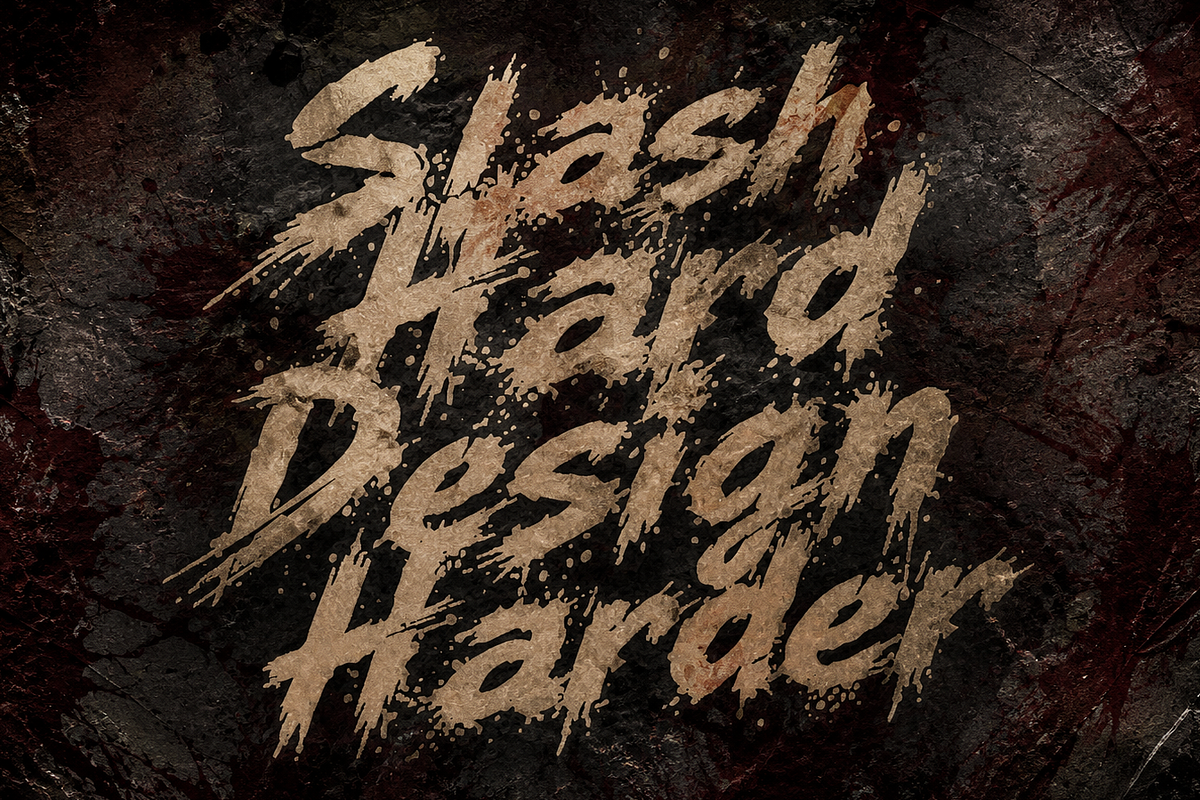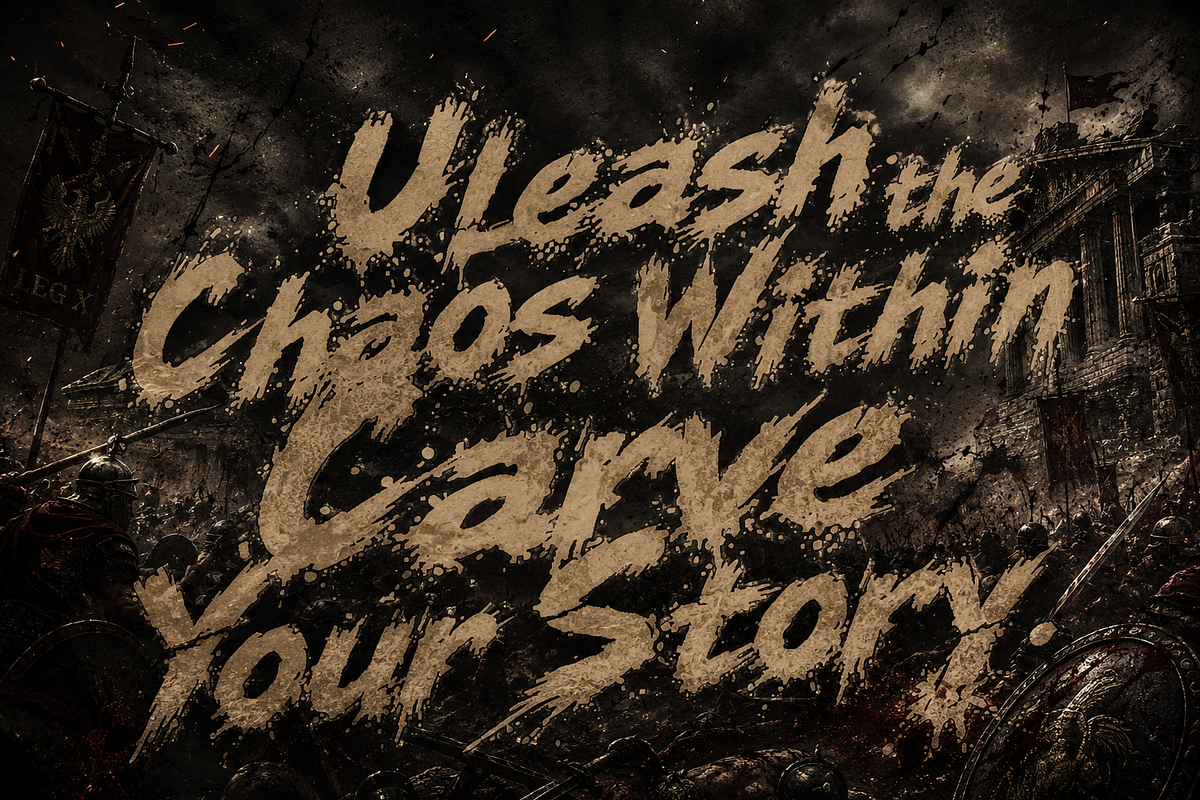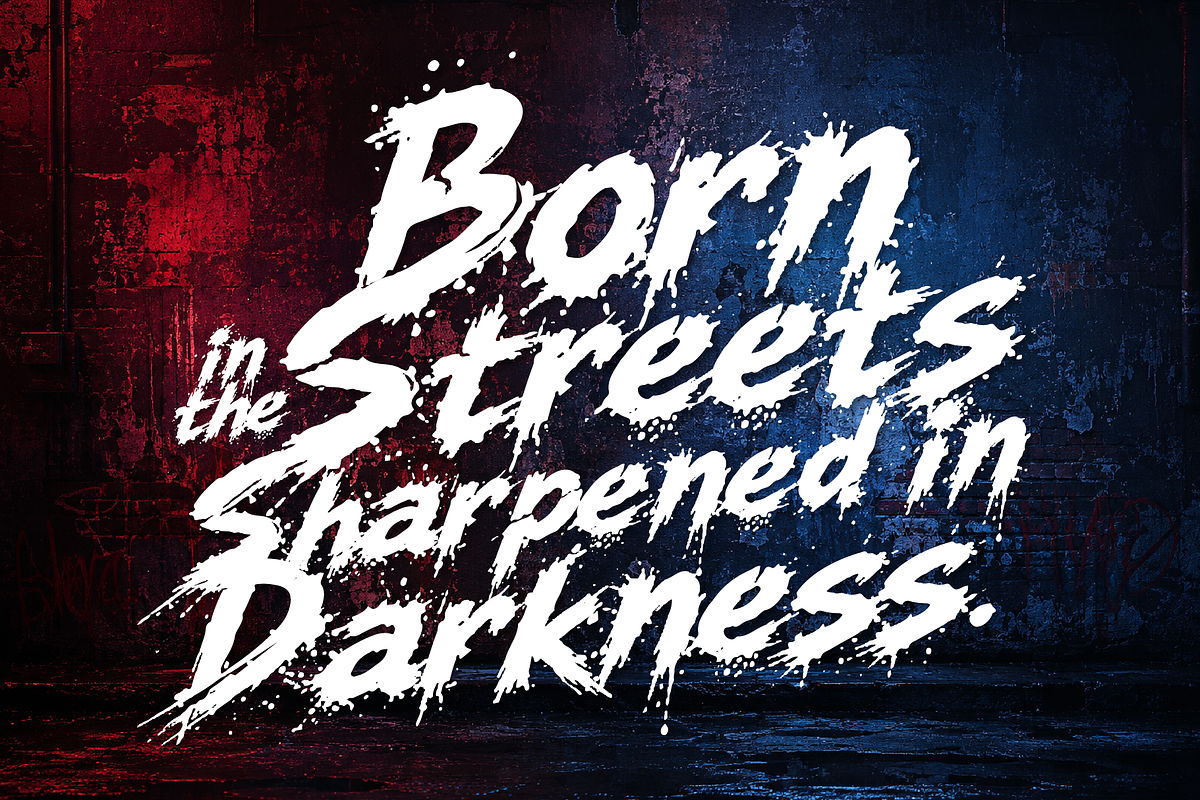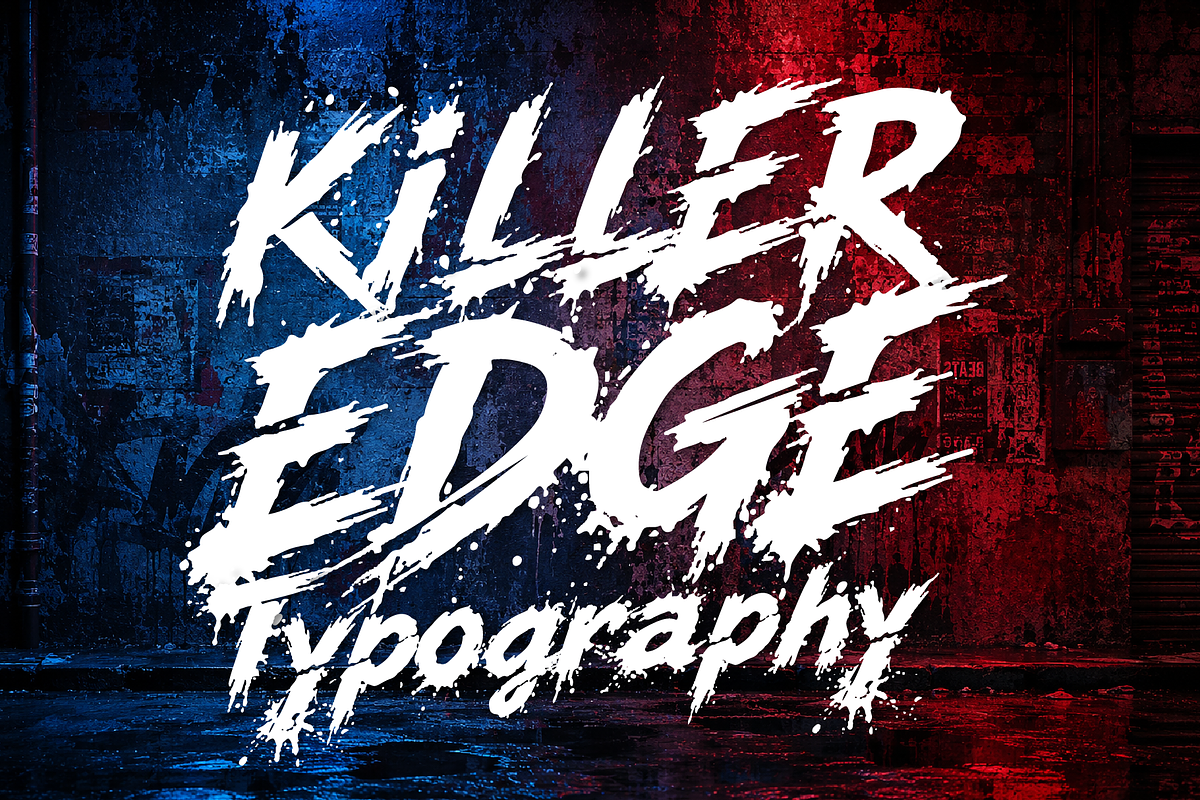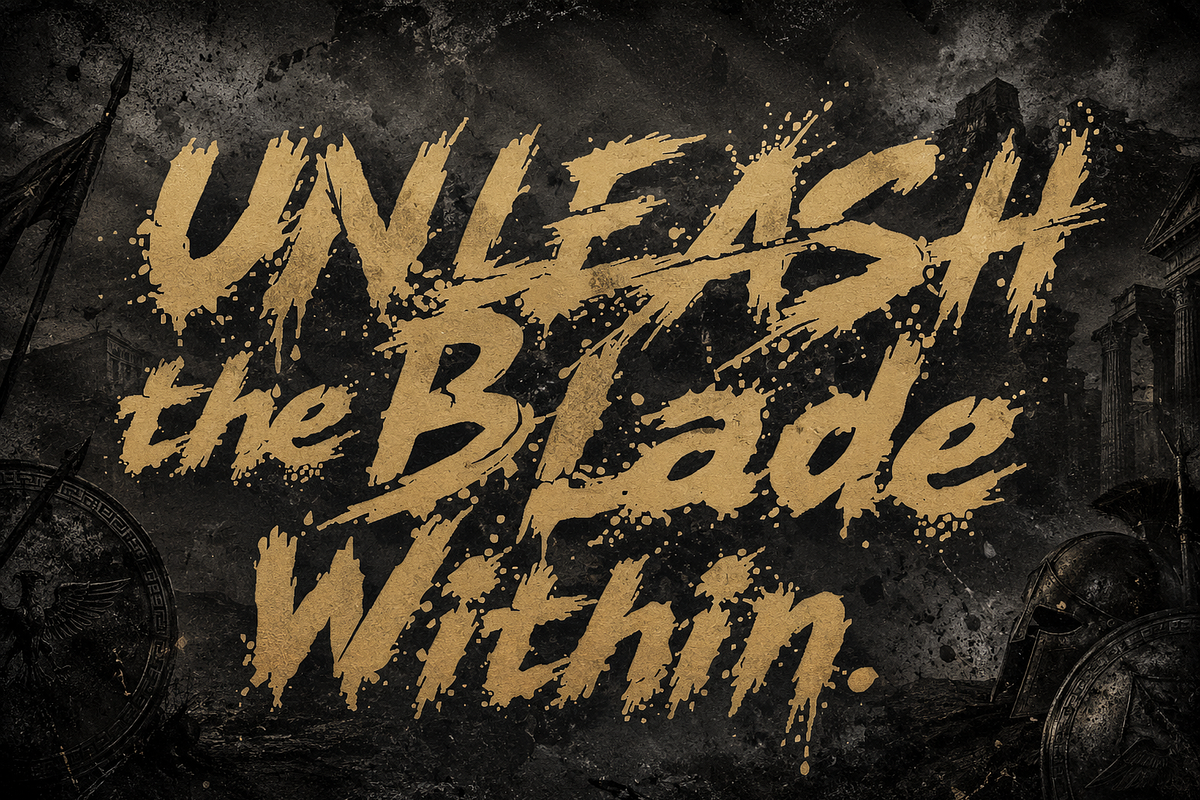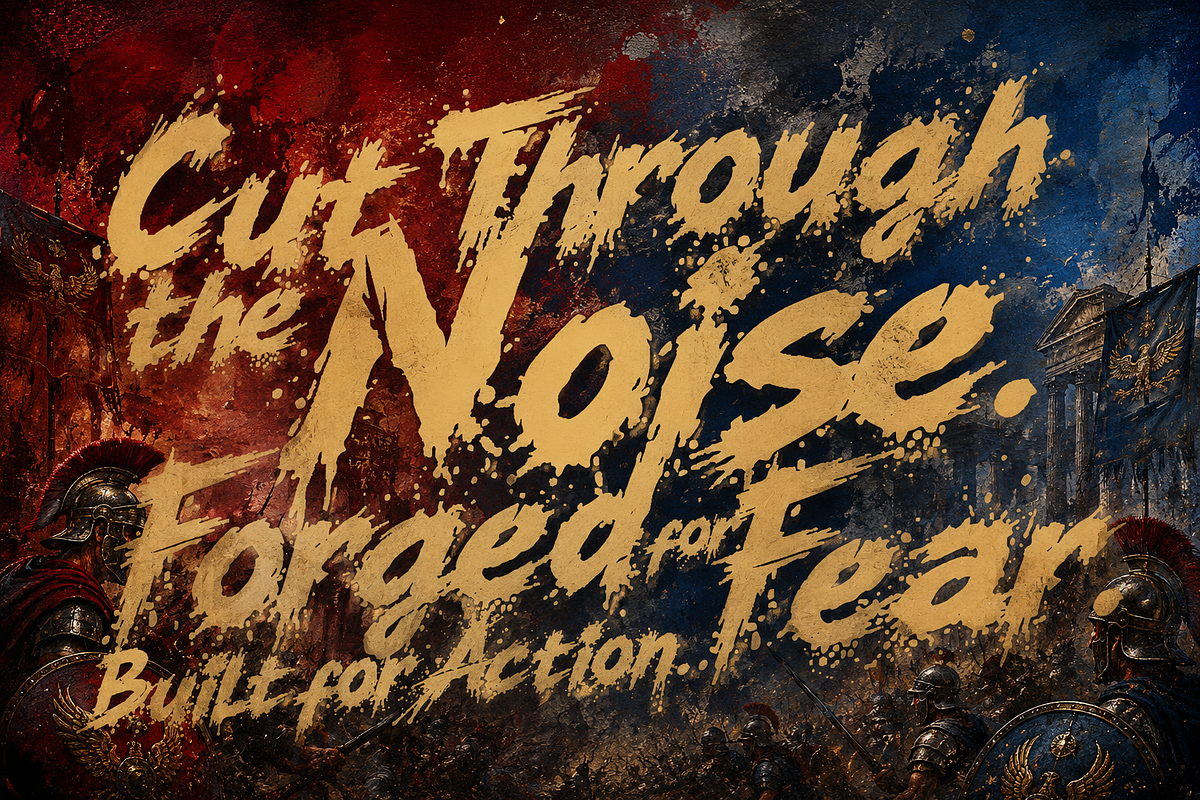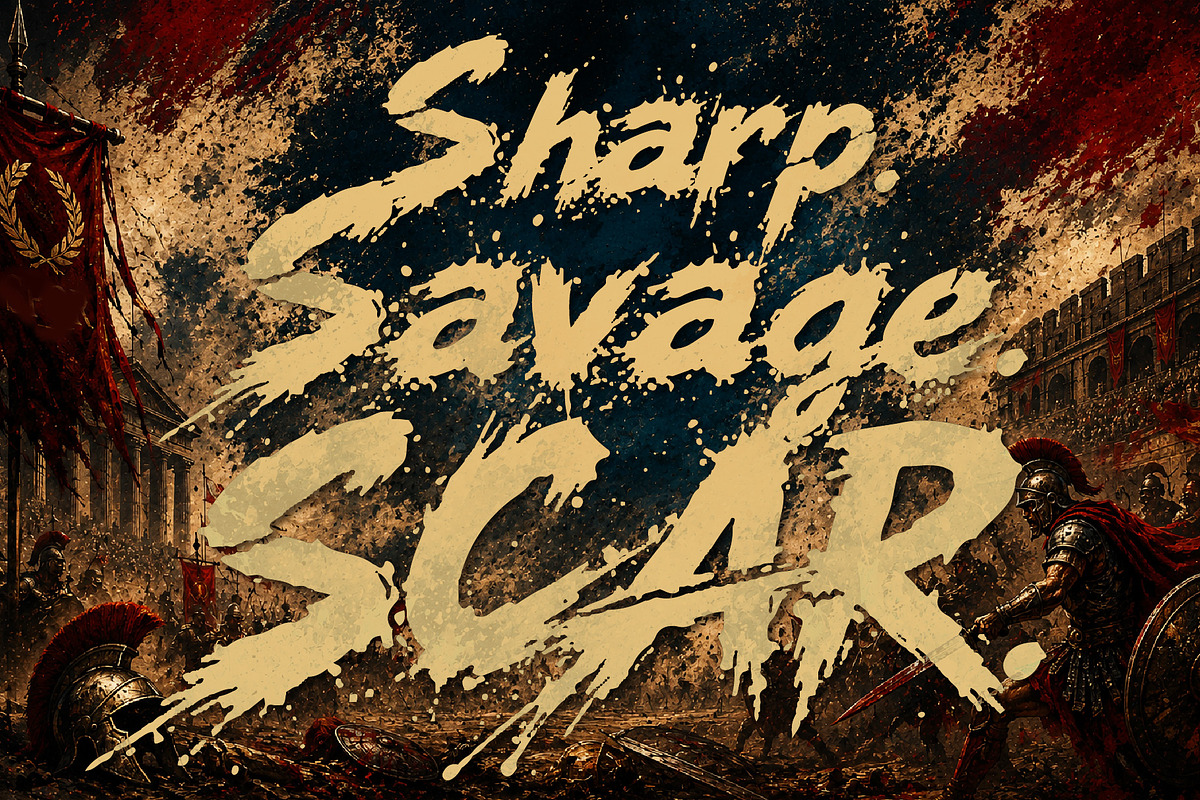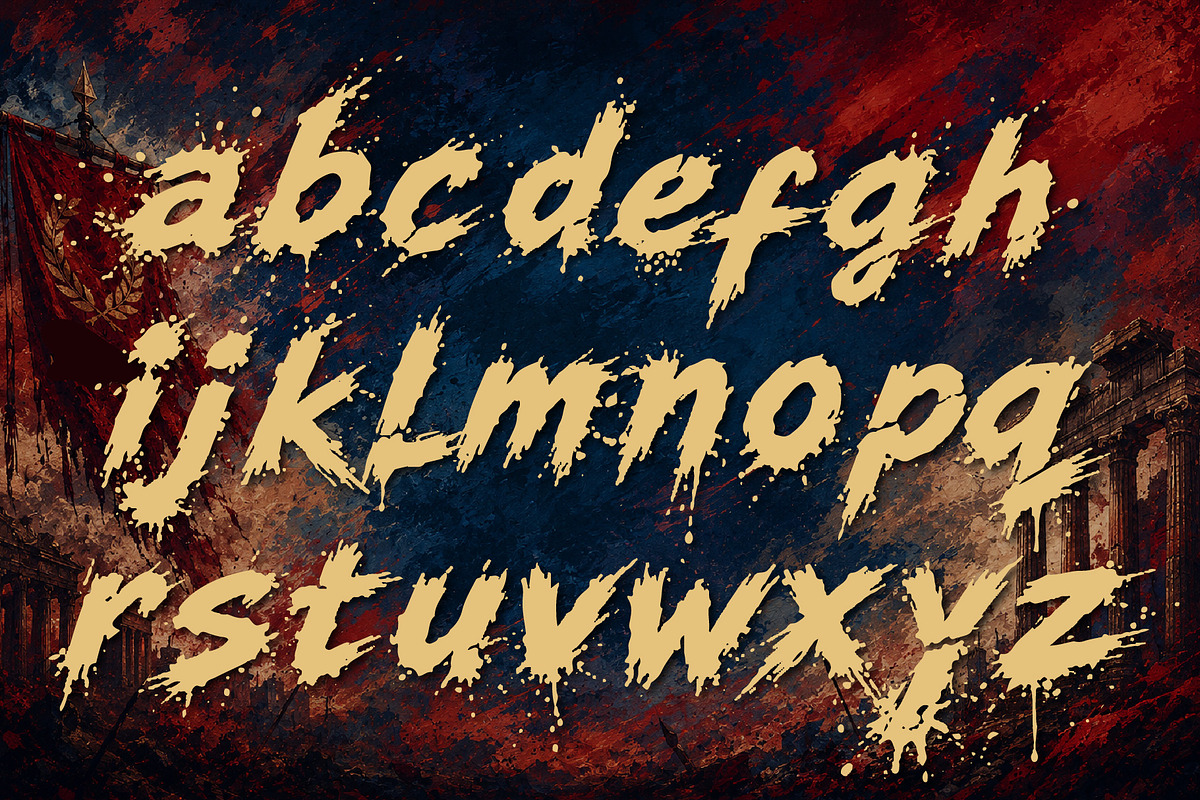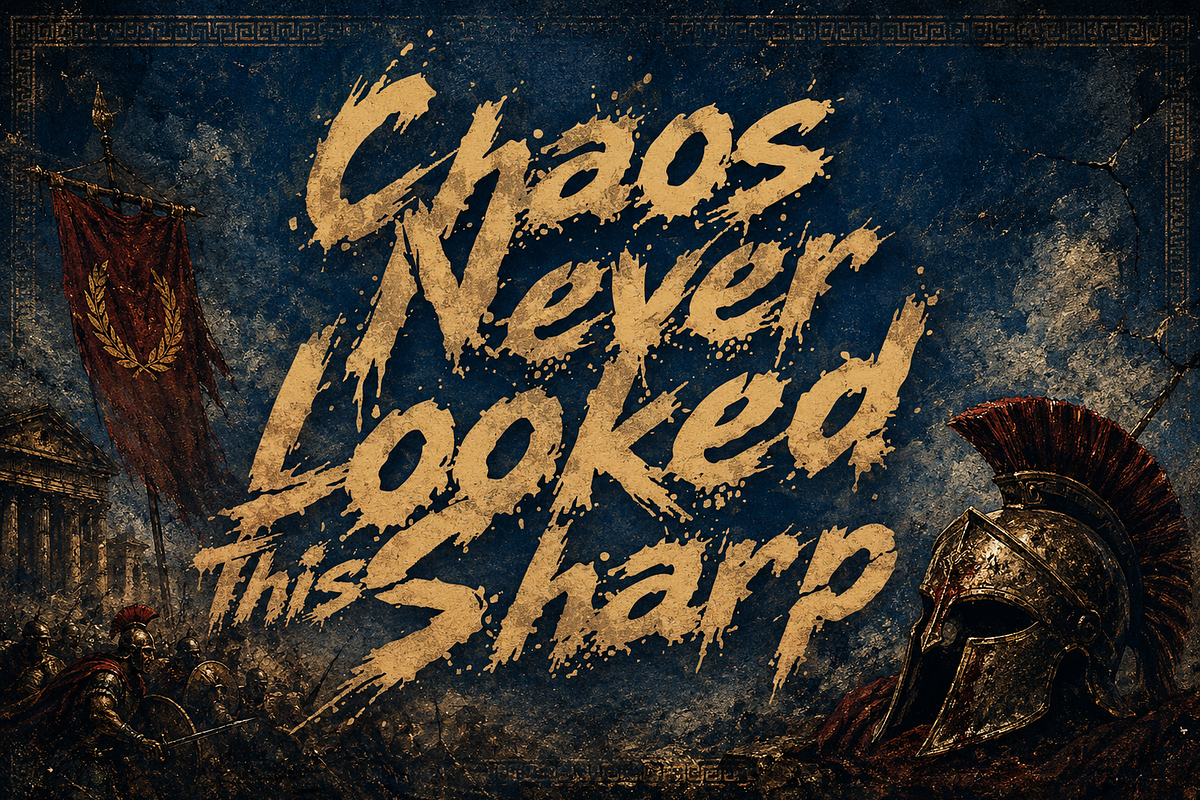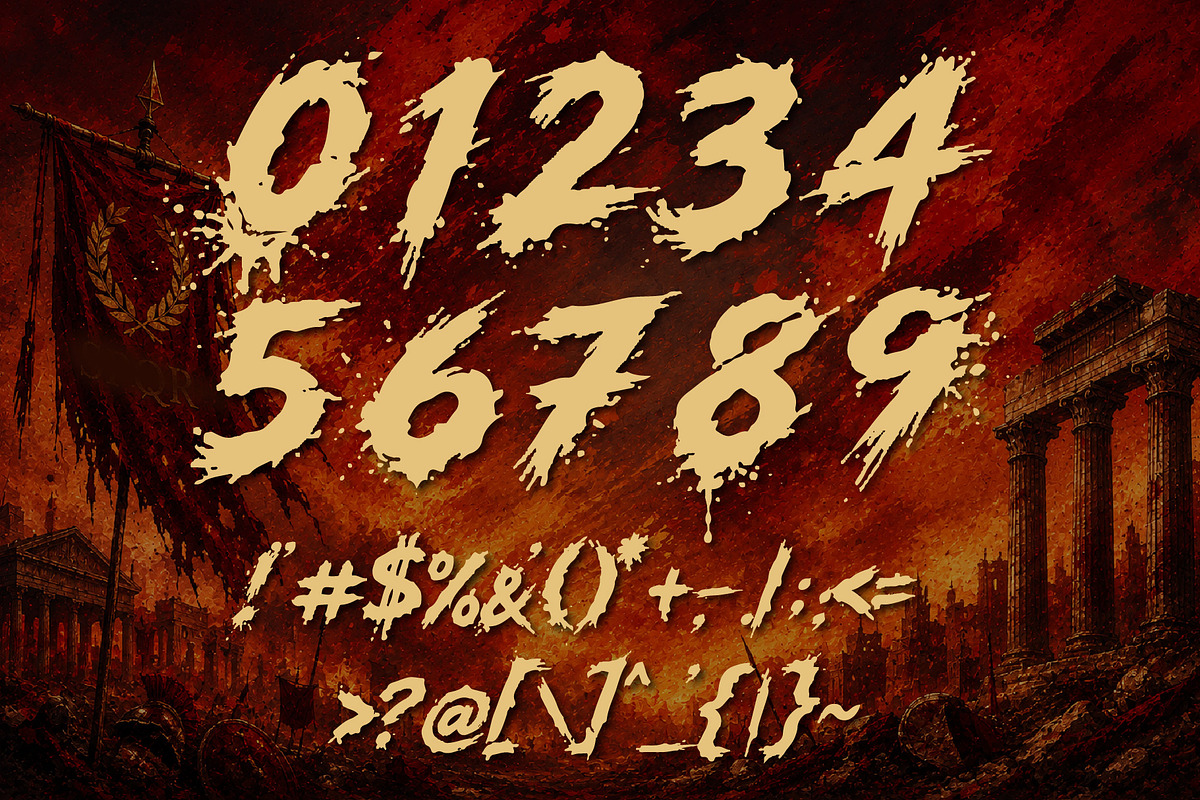
BladeOdessey - Chaos Dangerous Font
BladeOdessey is a fierce grunge display font forged for horror, action, and urban-inspired designs. Featuring razor-sharp strokes, chaotic splatter textures, and distressed letterforms, it delivers an aggressive handcrafted look that instantly grabs attention. Perfect for movie posters, gaming logos, streetwear branding, metal album covers, YouTube thumbnails, Halloween projects, esports graphics, comic titles, and bold merchandise. Whether you're creating dark cinematic visuals or raw urban artwork, BladeOdessey slices through ordinary typography with brutal style.